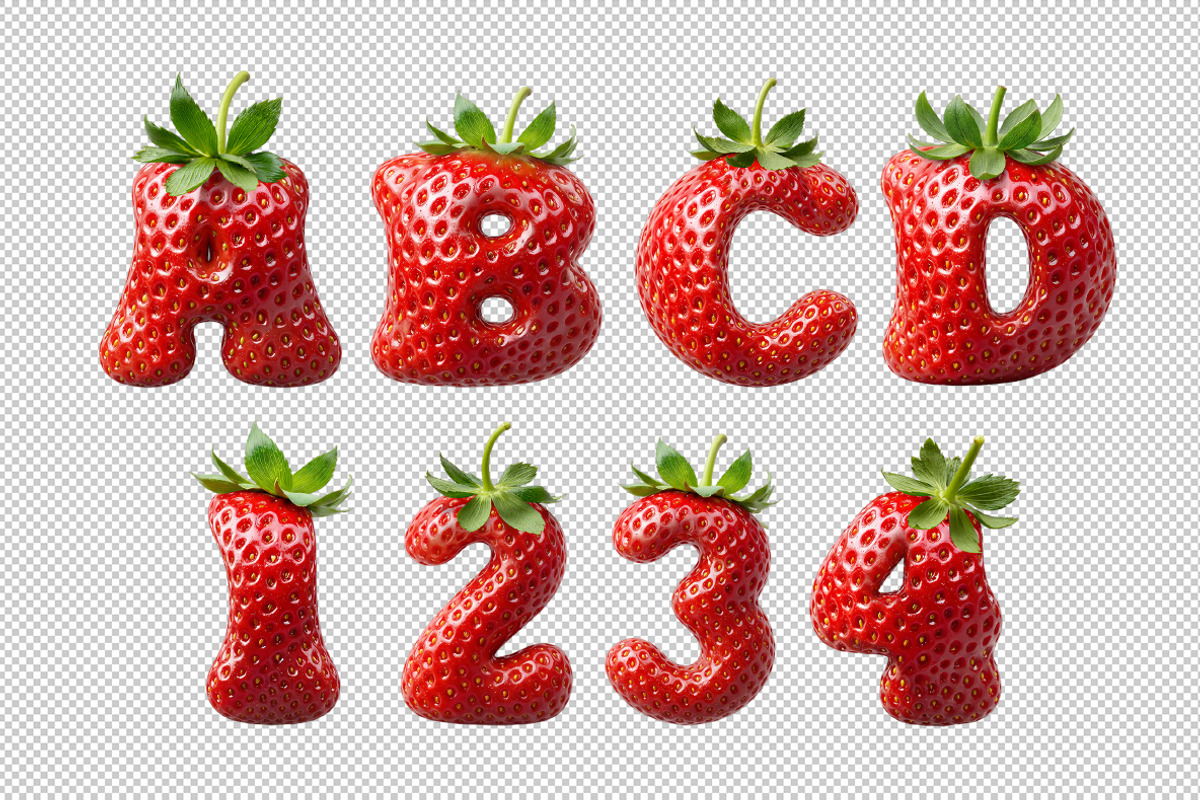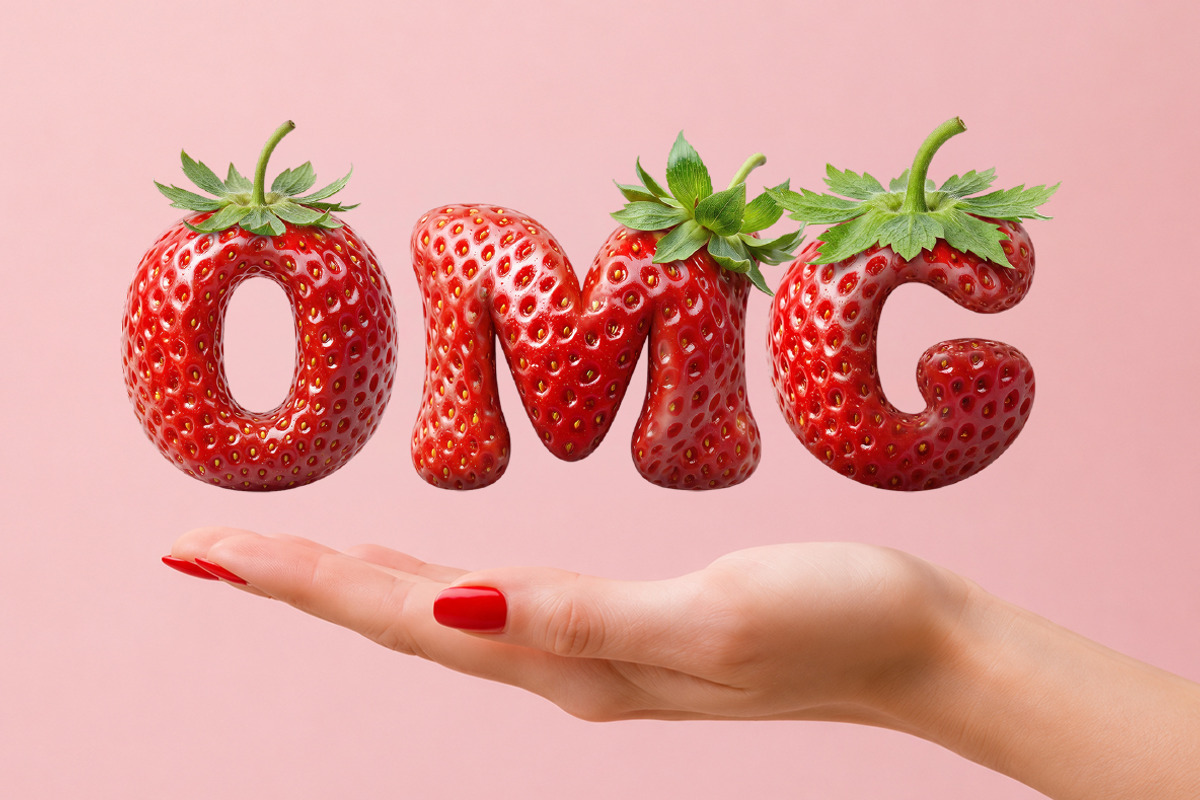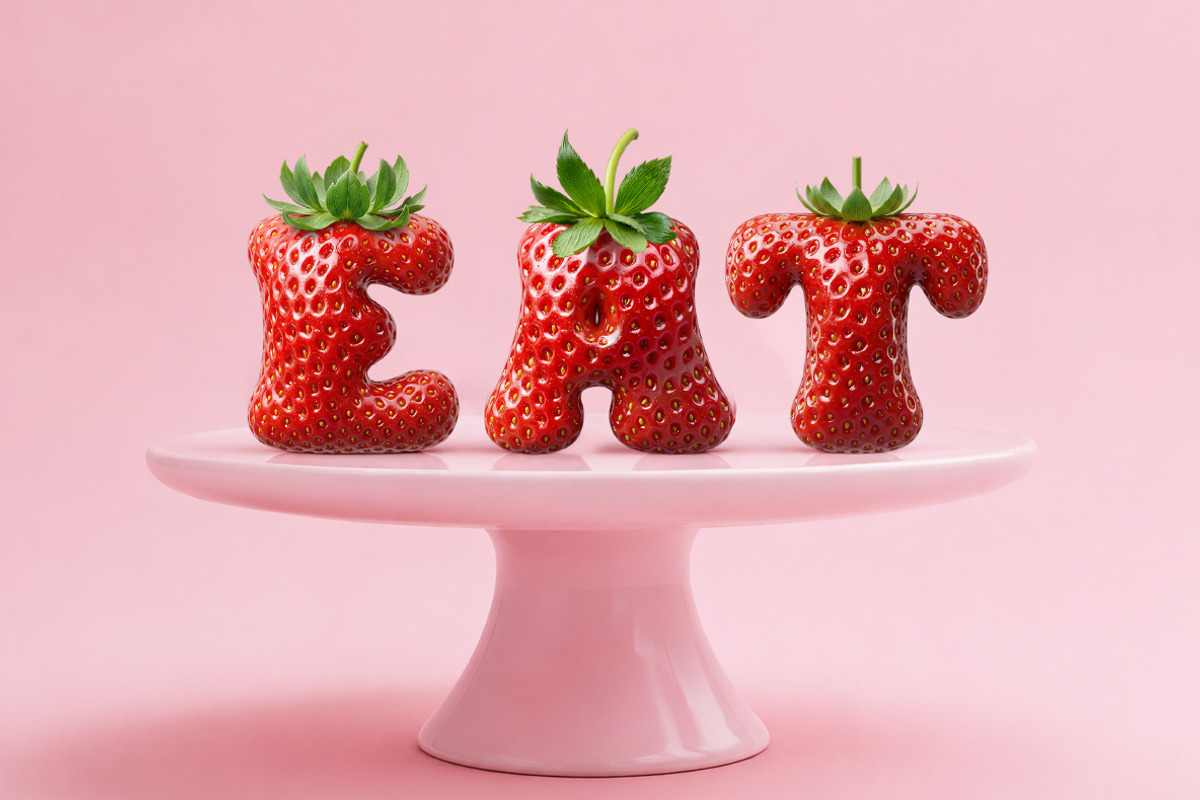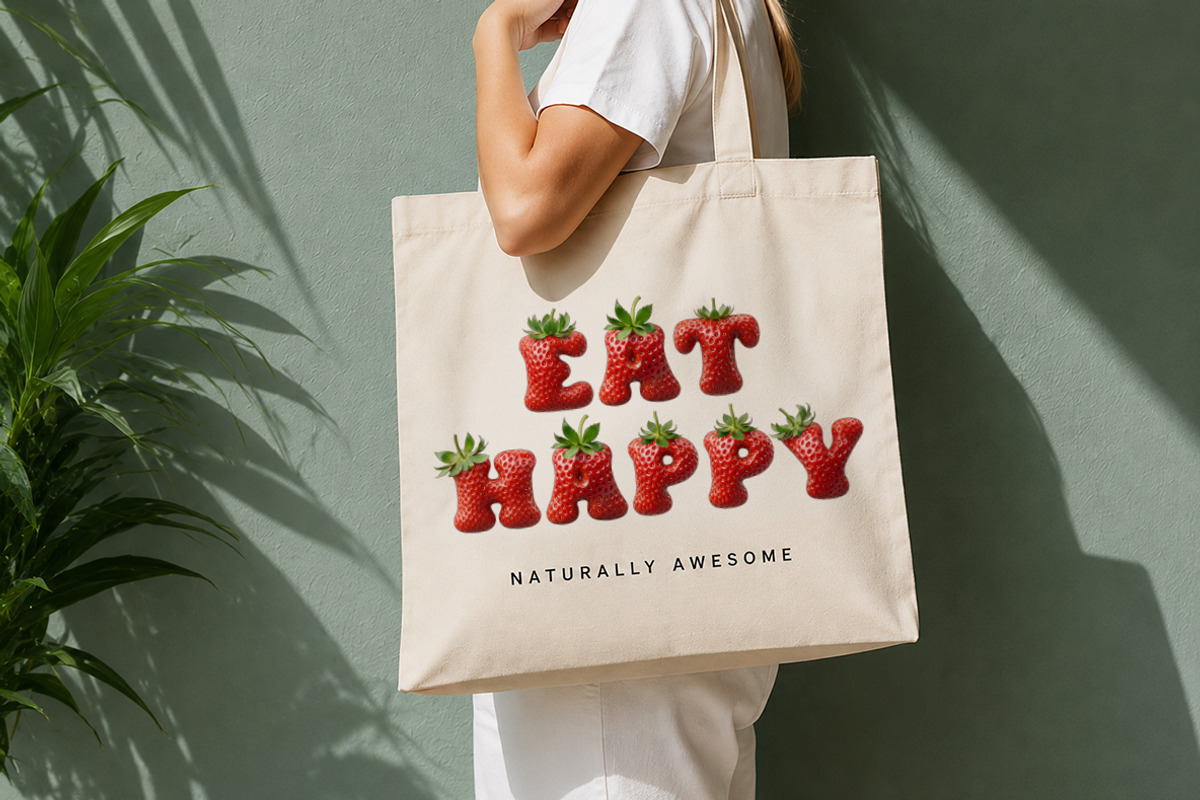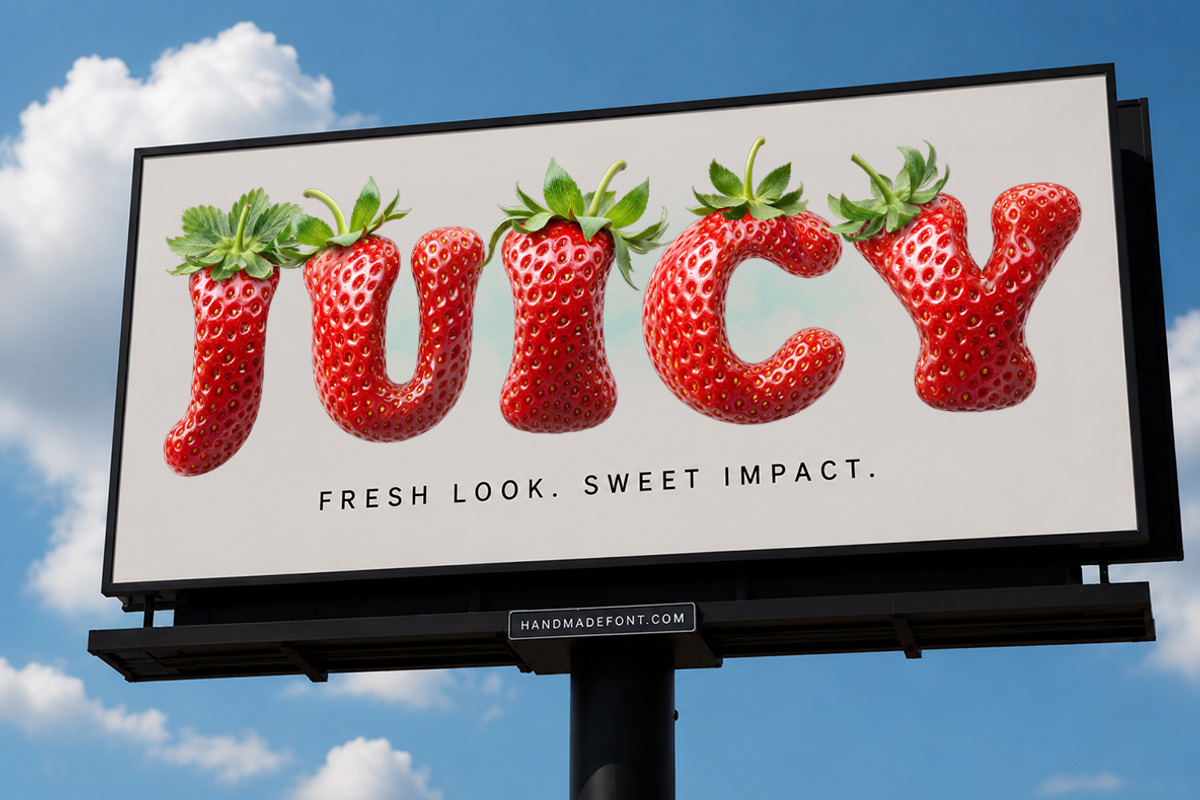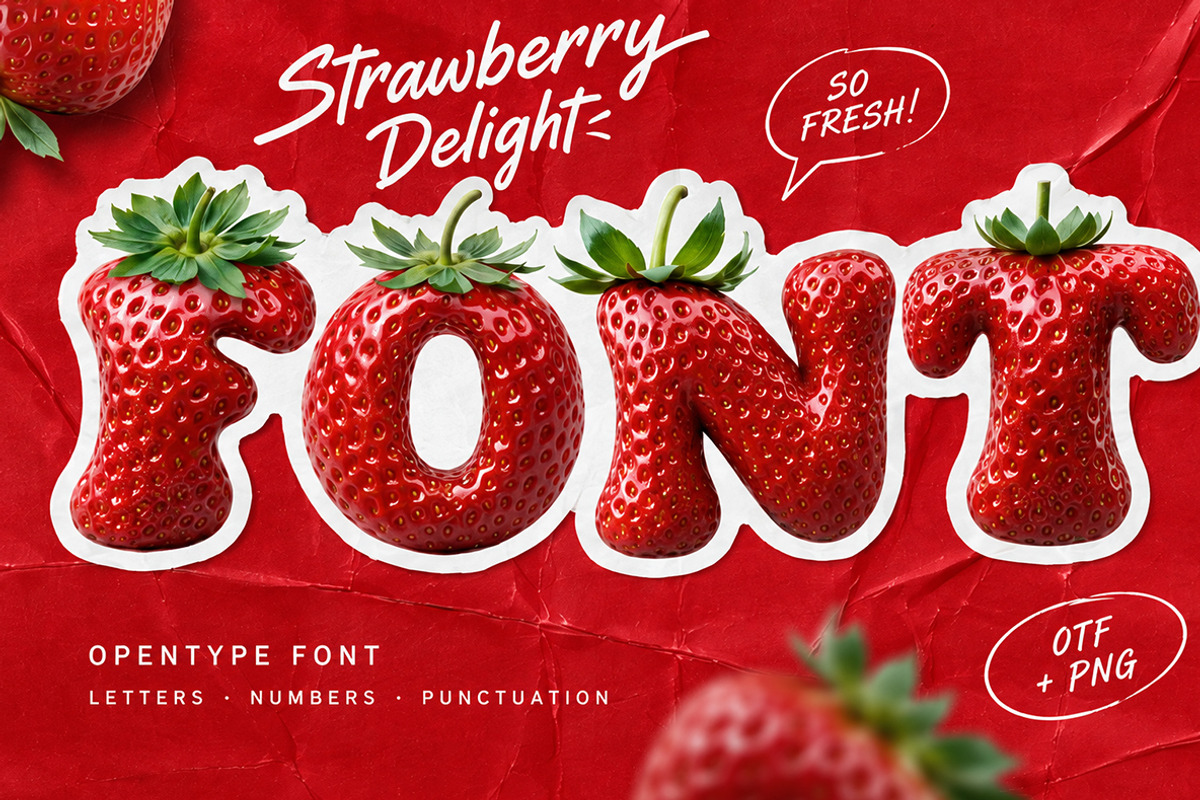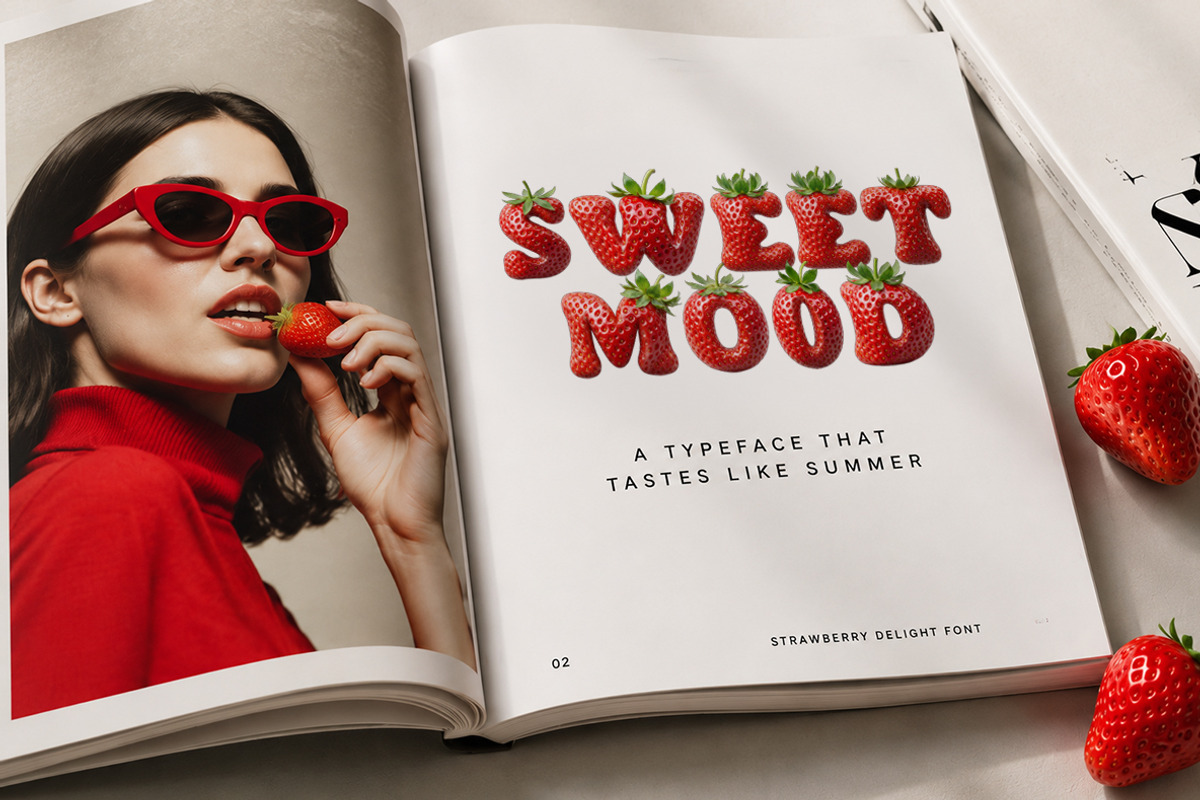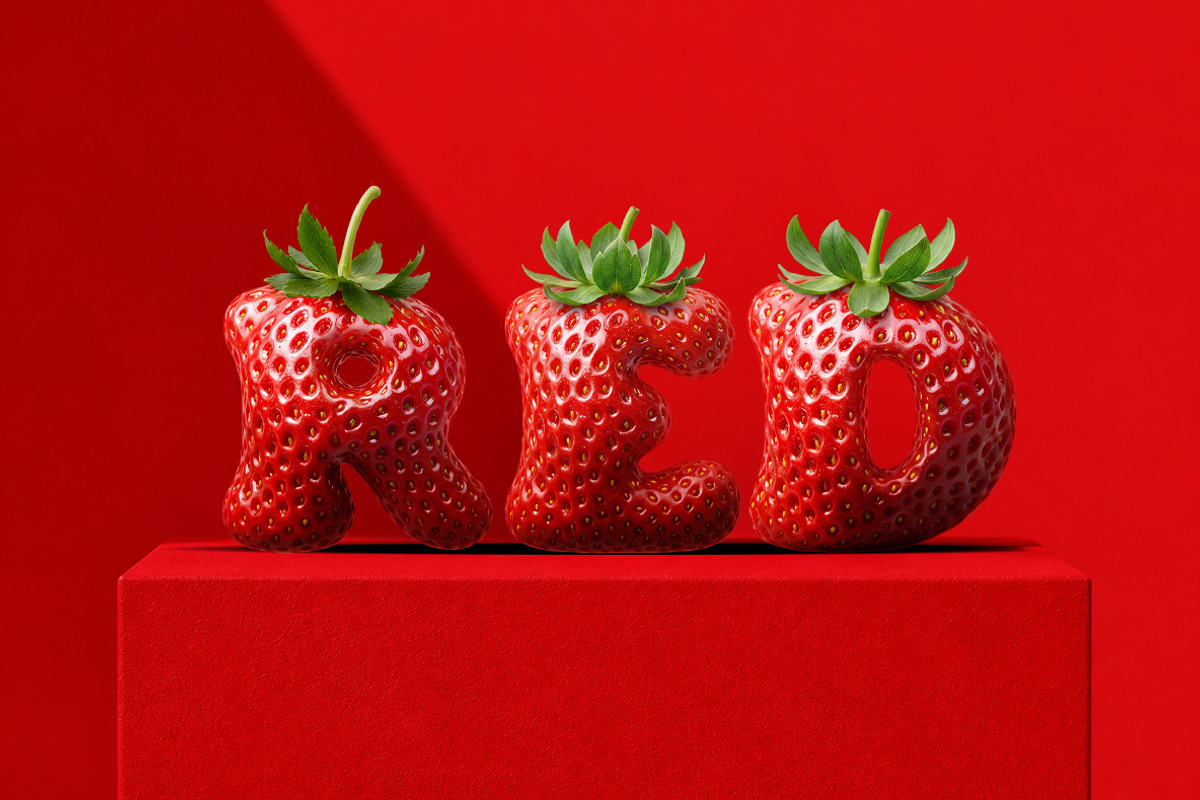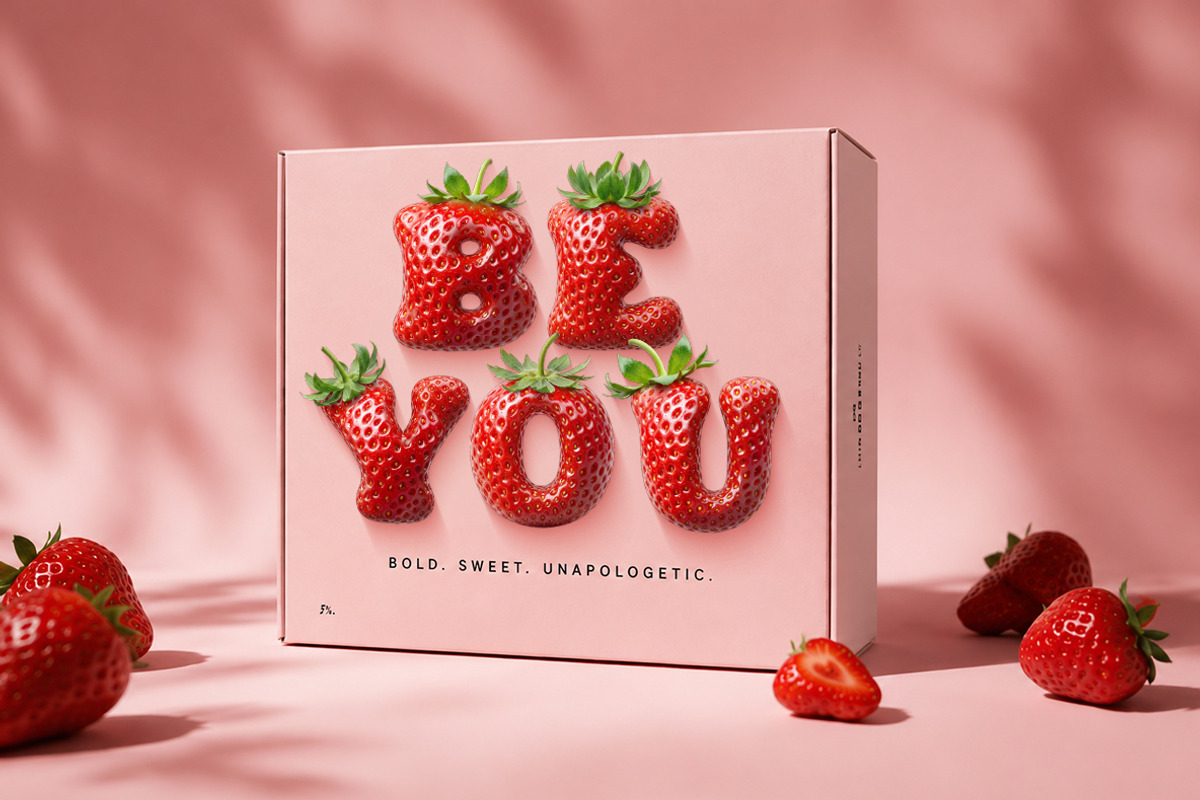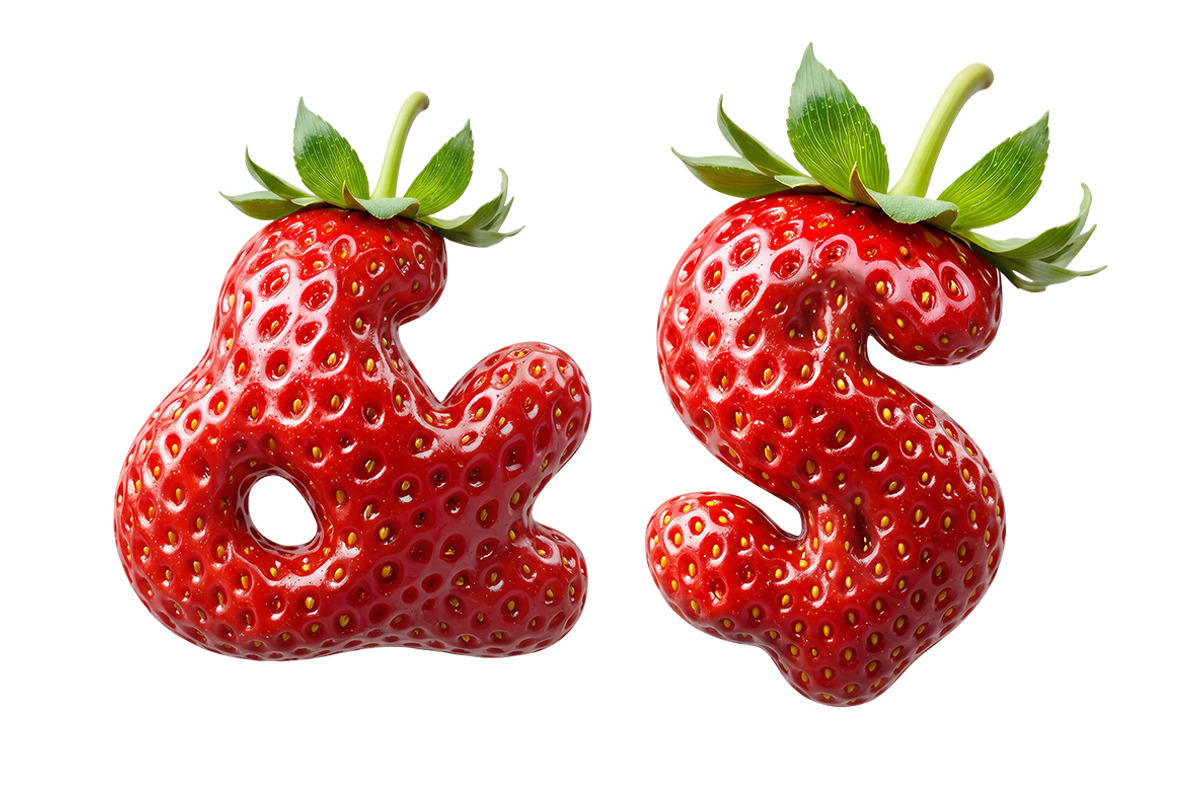
Strawberry Delight Font
Strawberry Delight Font is a juicy, playful display typeface inspired by the fresh beauty of ripe strawberries. Every character is carefully crafted with realistic fruit textures, glossy highlights, detailed seeds, and natural green leaves, creating a fun yet premium look. Perfect for food branding, packaging, posters, logos, social media, children's designs, seasonal promotions, and creative advertising, this font instantly grabs attention. The package includes the complete OpenType (OTF) font for easy typing, plus every individual character as a high-quality PNG file with a transparent background, giving you maximum flexibility for custom layouts, compositions, and unique graphic design projects.